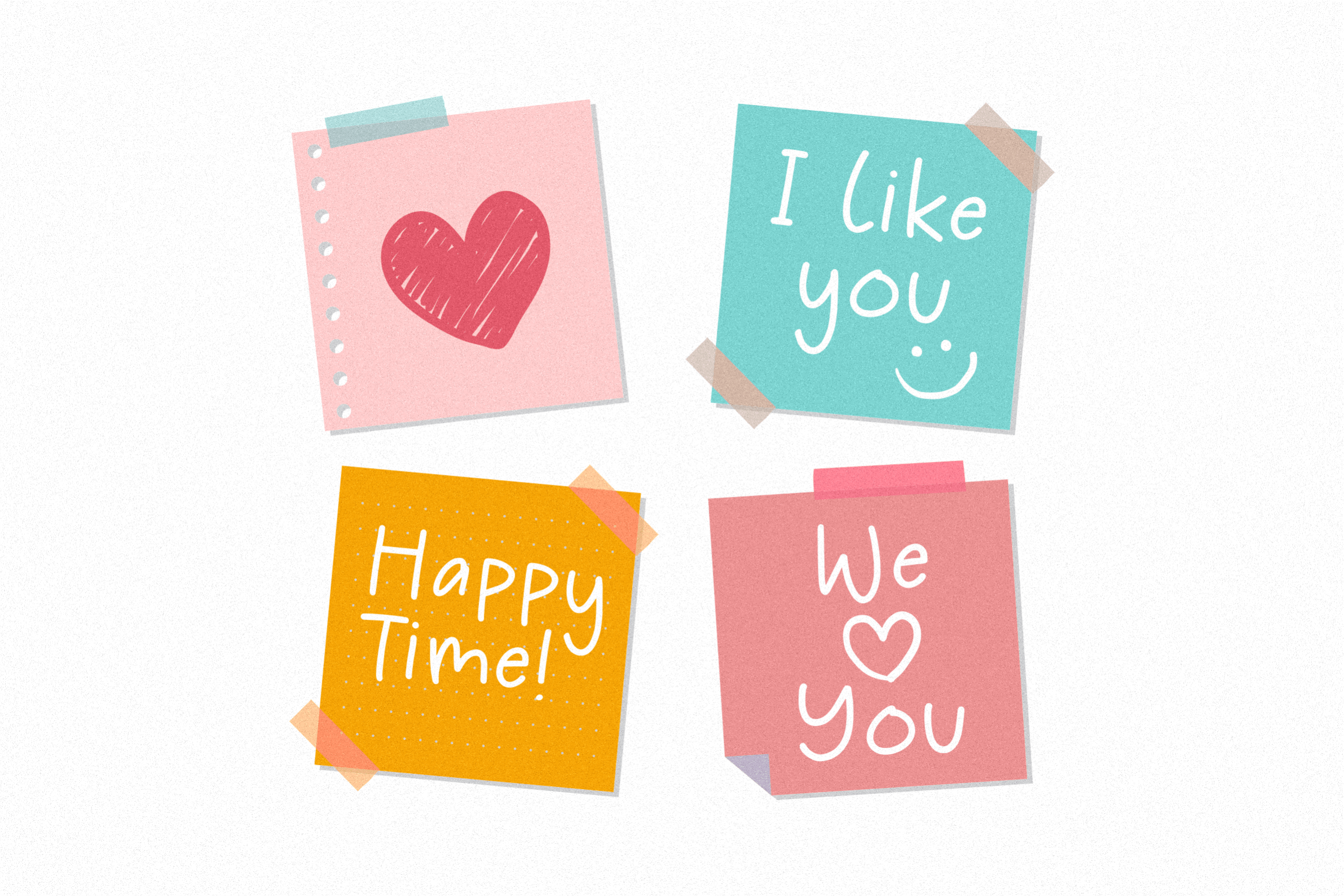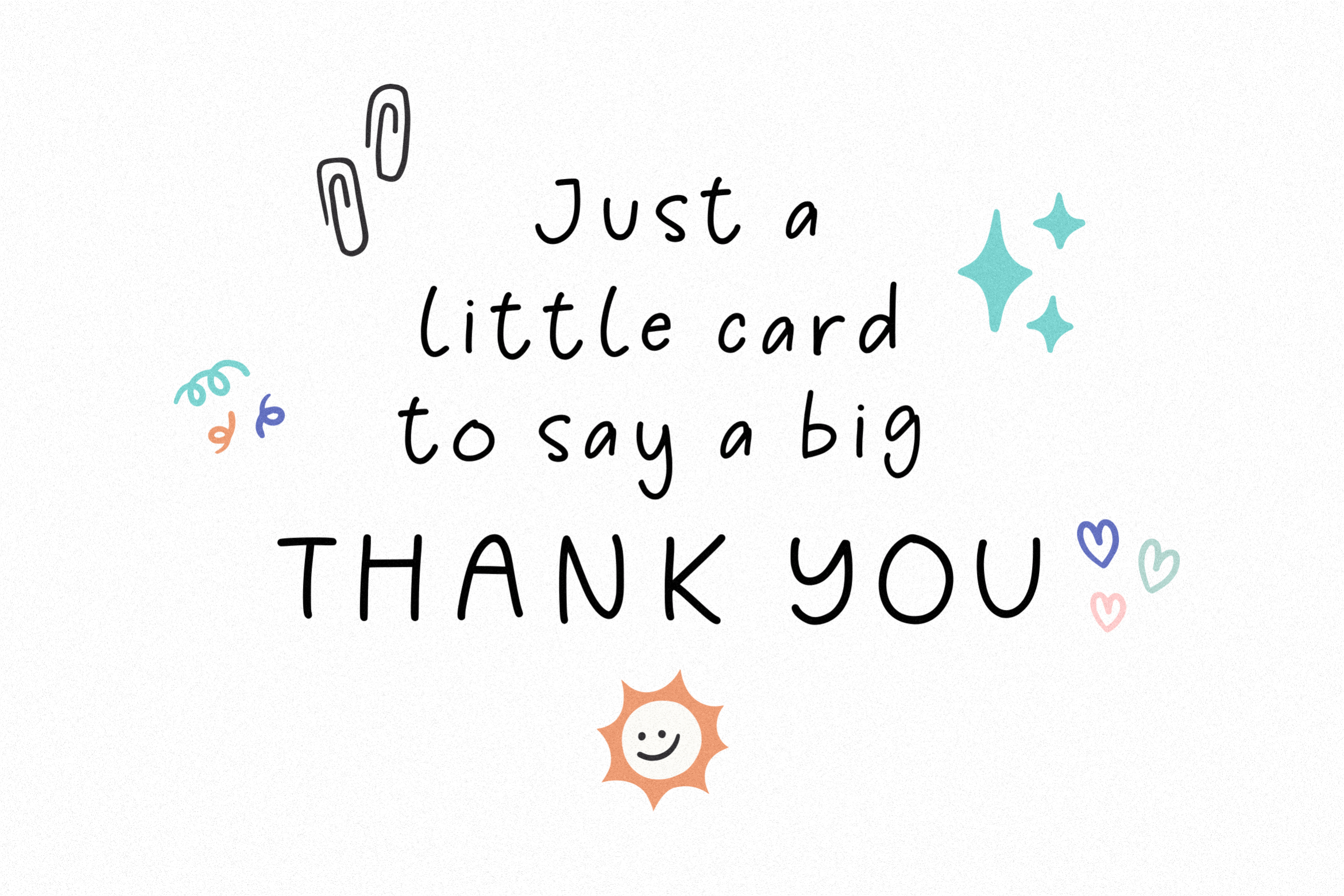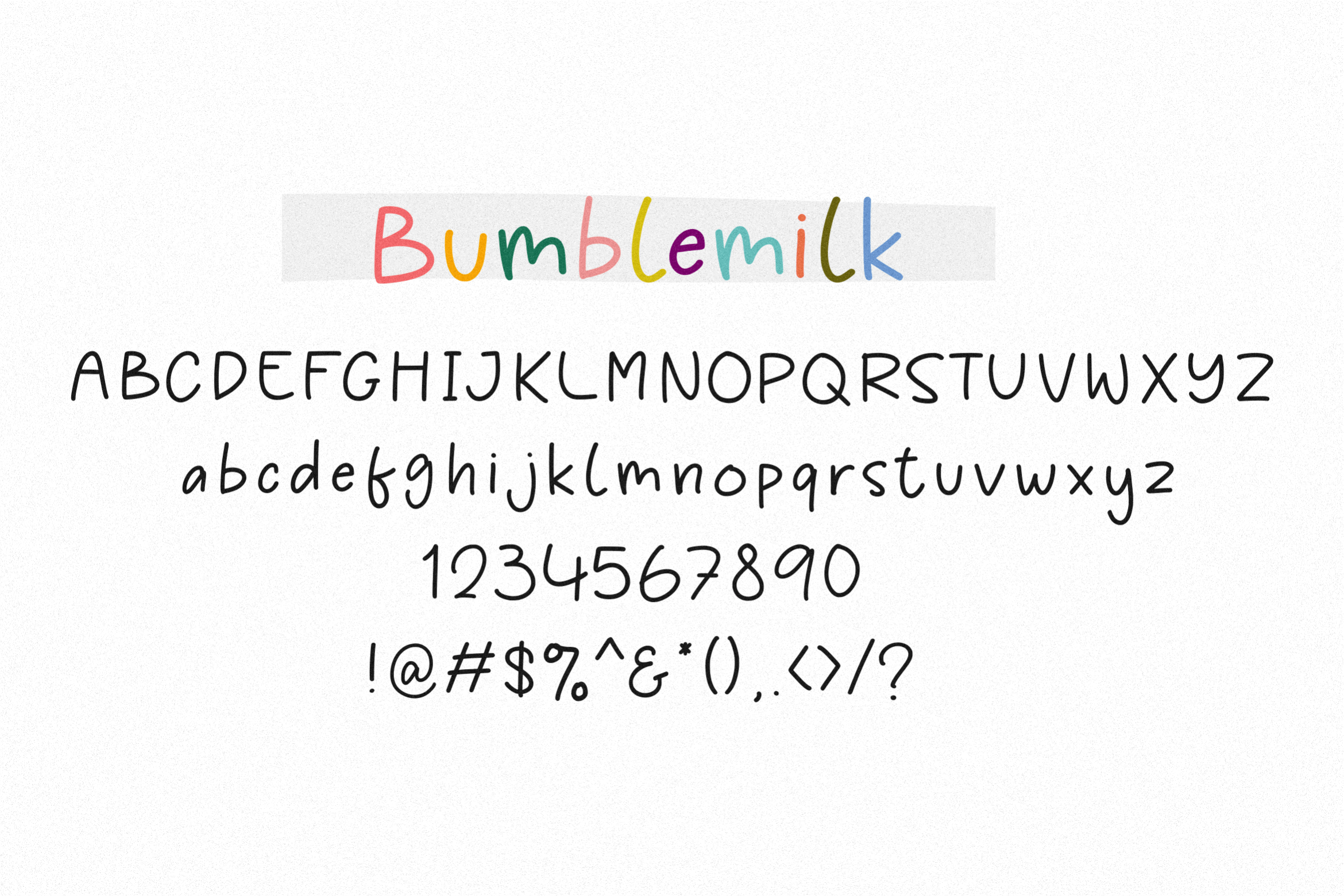
Bumblemilk Font
Bumblemilk Handwritten Font
It’s a sweet and friendly handwritten font. Its natural and unique style makes it incredibly fitting to a large pool of designs. The only limit is your imagination!